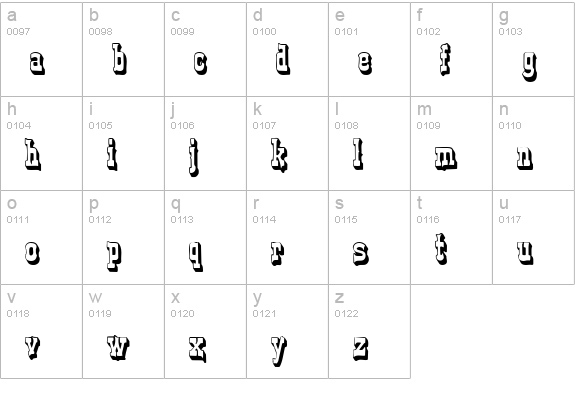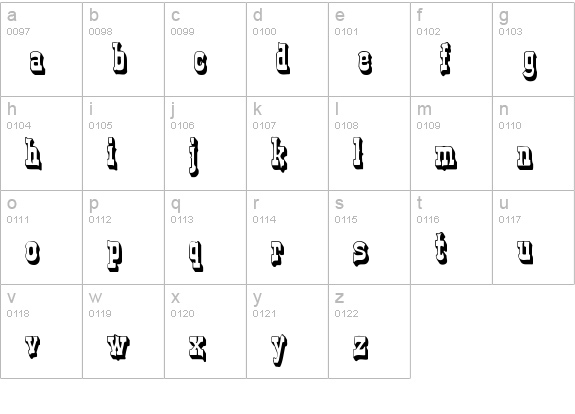
Frontier Font Details
Introducing Frontier font, a versatile and stylish typeface that exudes a sense of adventure and exploration. With its bold and rugged design, Frontier font is perfect for projects that require a touch of the wild west or a sense of pioneering spirit. The sharp angles and unique letterforms of Frontier font make it stand out from the crowd, adding a distinctive and memorable element to any design. Best of all, Frontier font is available for free download at FontsMarket.com. That's right, you can add this eye-catching font to your collection without spending a dime. Whether you're working on a poster, logo, website, or any other project, Frontier font is sure to make a statement and leave a lasting impression. Download Frontier font today and let your creativity run wild!